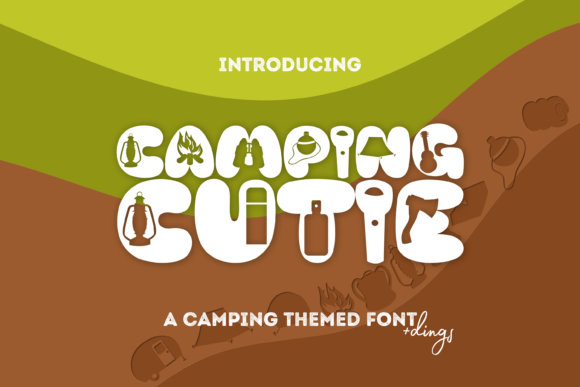
Welcome to the world of Camping Cutie Font, a charming and captivating decorative font that will ignite your creativity and bring a touch of adventure to your designs. Its playful characters, inspired by the great outdoors, invite you to embark on a visual journey filled with exploration and wonder.
Immerse yourself in the beauty of nature with Camping Cutie Font. With its whimsical style, this font is ideal for crafting unique and eye-catching designs for camping projects, apparel, stationery, camping gear, and more. Unleash your imagination and create designs that evoke the spirit of the wilderness, the joy of campfires, and the serenity of starry nights.
Whether you're a professional designer or just starting your creative journey, Camping Cutie Font is the perfect choice for adding a touch of rustic charm to your projects. Its versatility and ease of use make it a favorite among designers worldwide. Join the adventure and let Camping Cutie Font be your creative companion.
Key features of Camping Cutie Font:
- Stunning decorative style, perfect for adding a touch of whimsy and adventure to your designs
- Ideal for a wide range of projects, including camping-themed designs, apparel, stationery, and more
- Easy to use and versatile, making it suitable for designers of all skill levels
- Extensive character set, including uppercase, lowercase, numbers, and symbols
- Full language support, ensuring compatibility with multiple languages